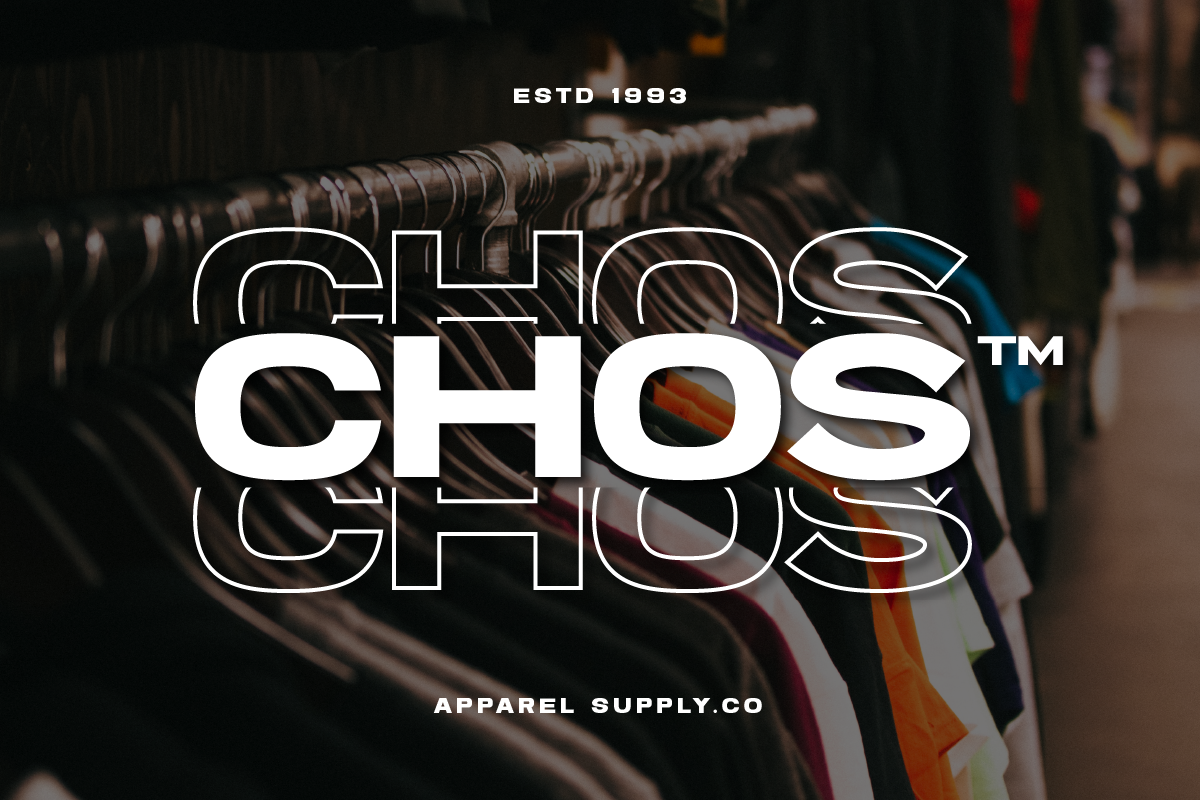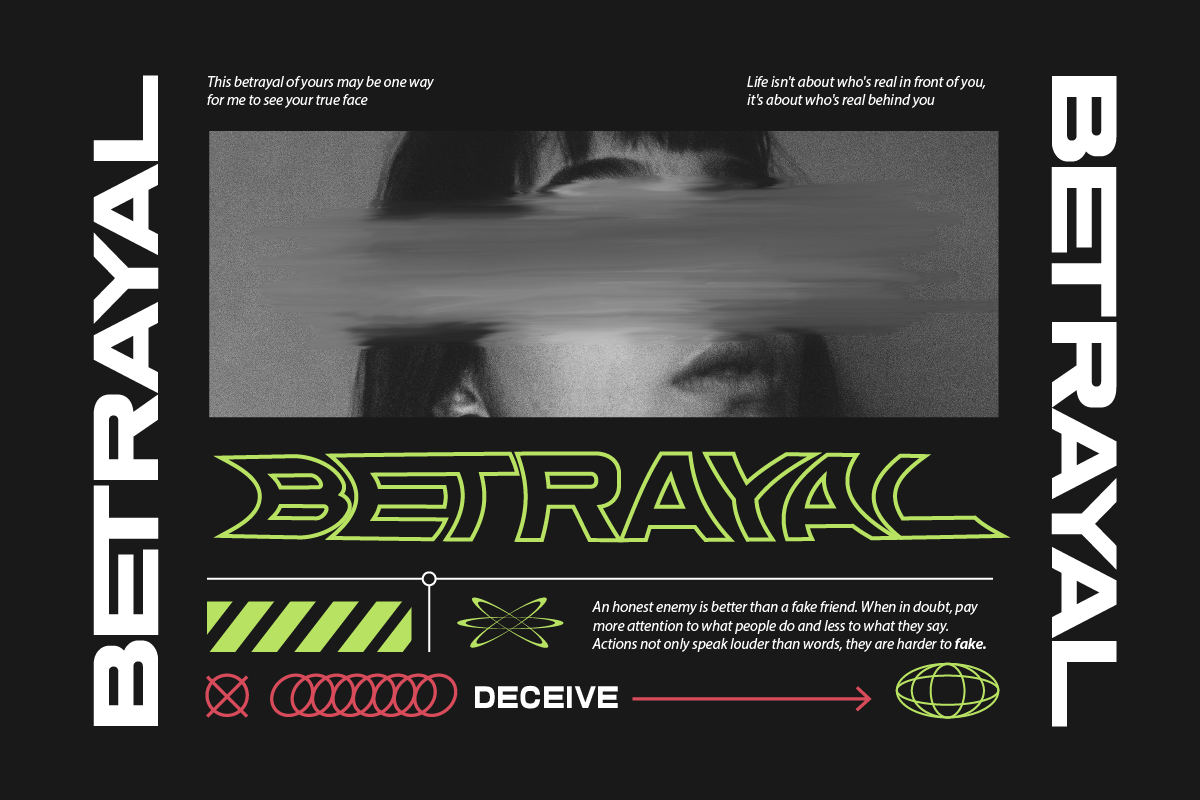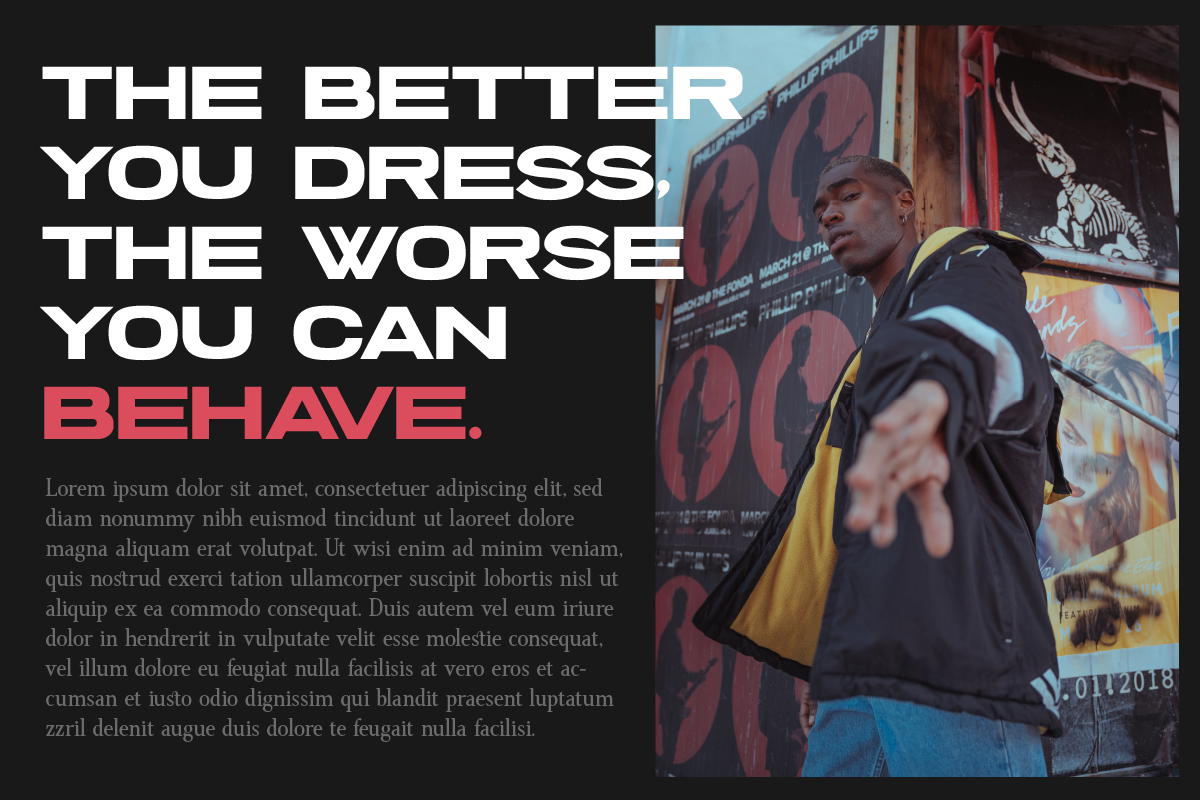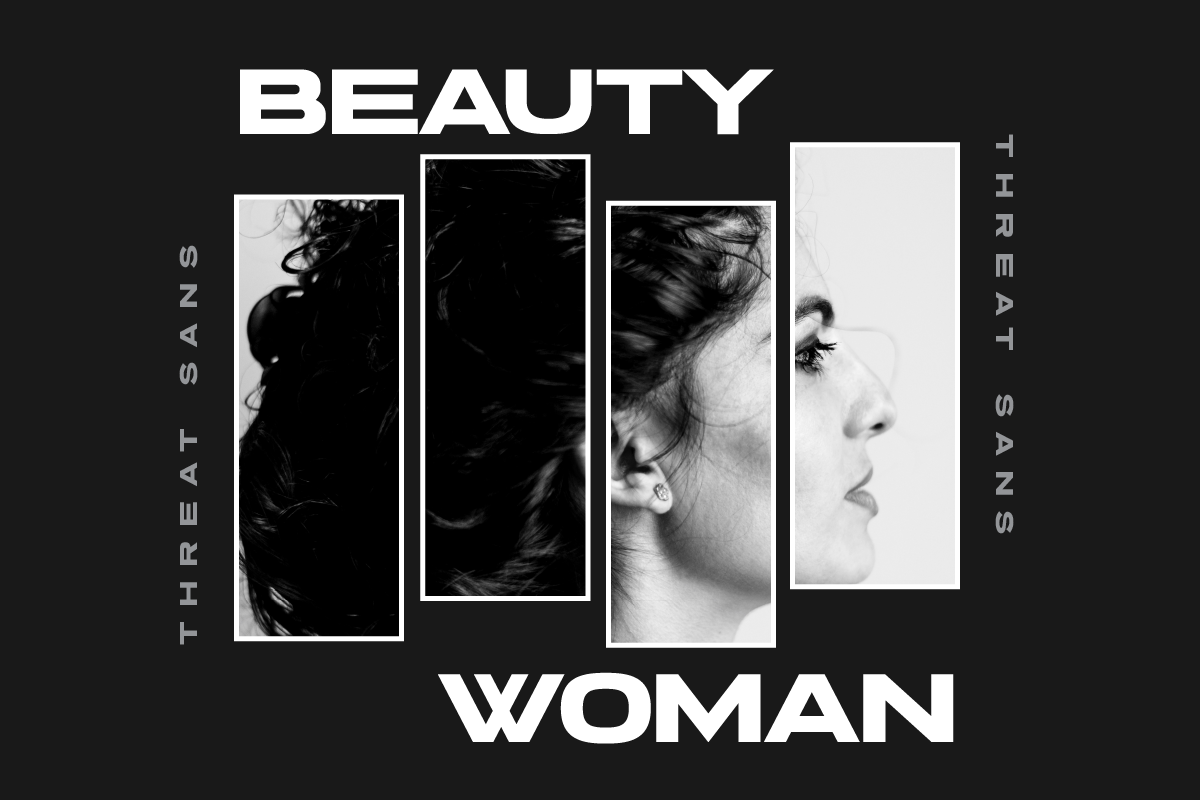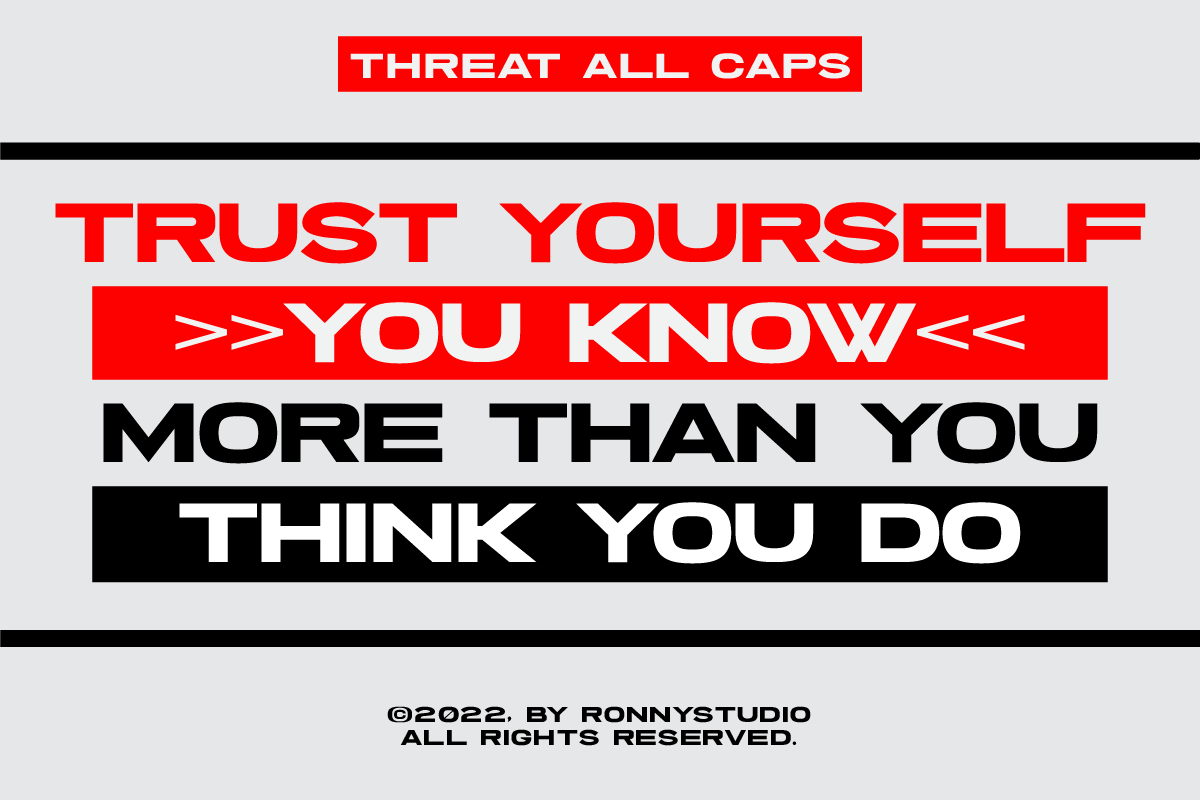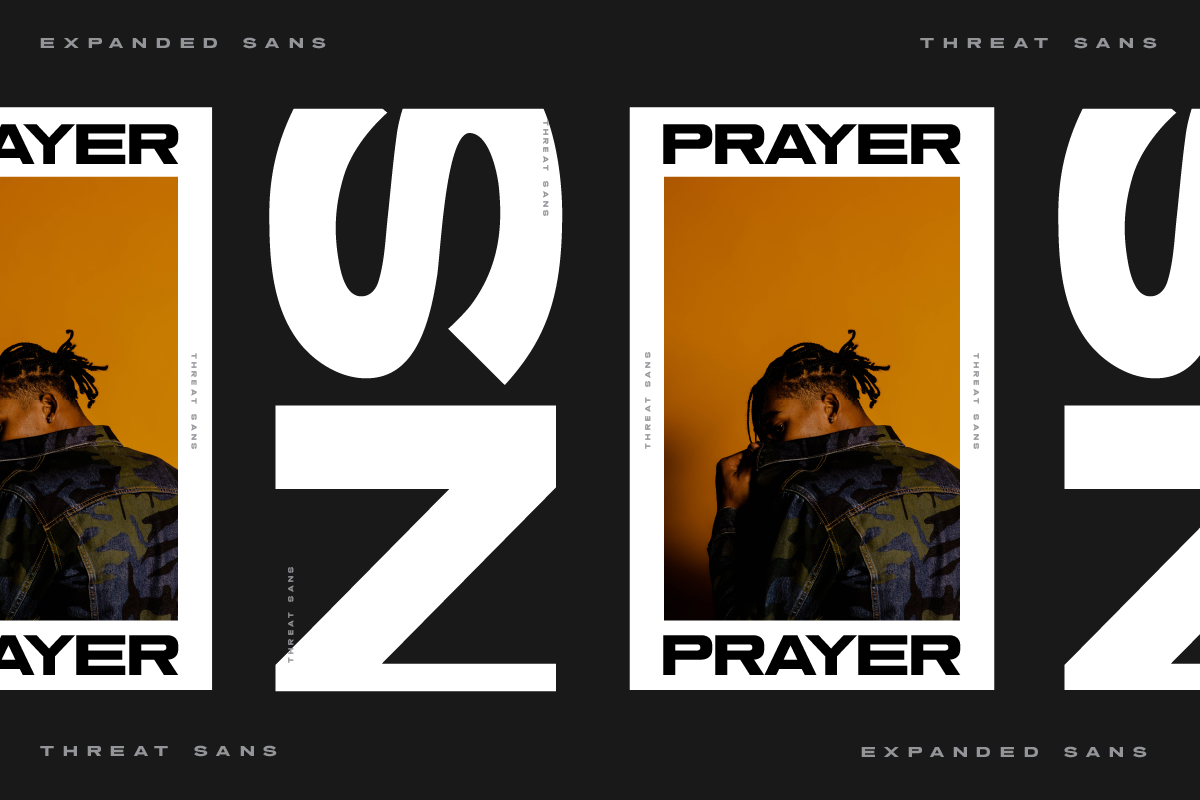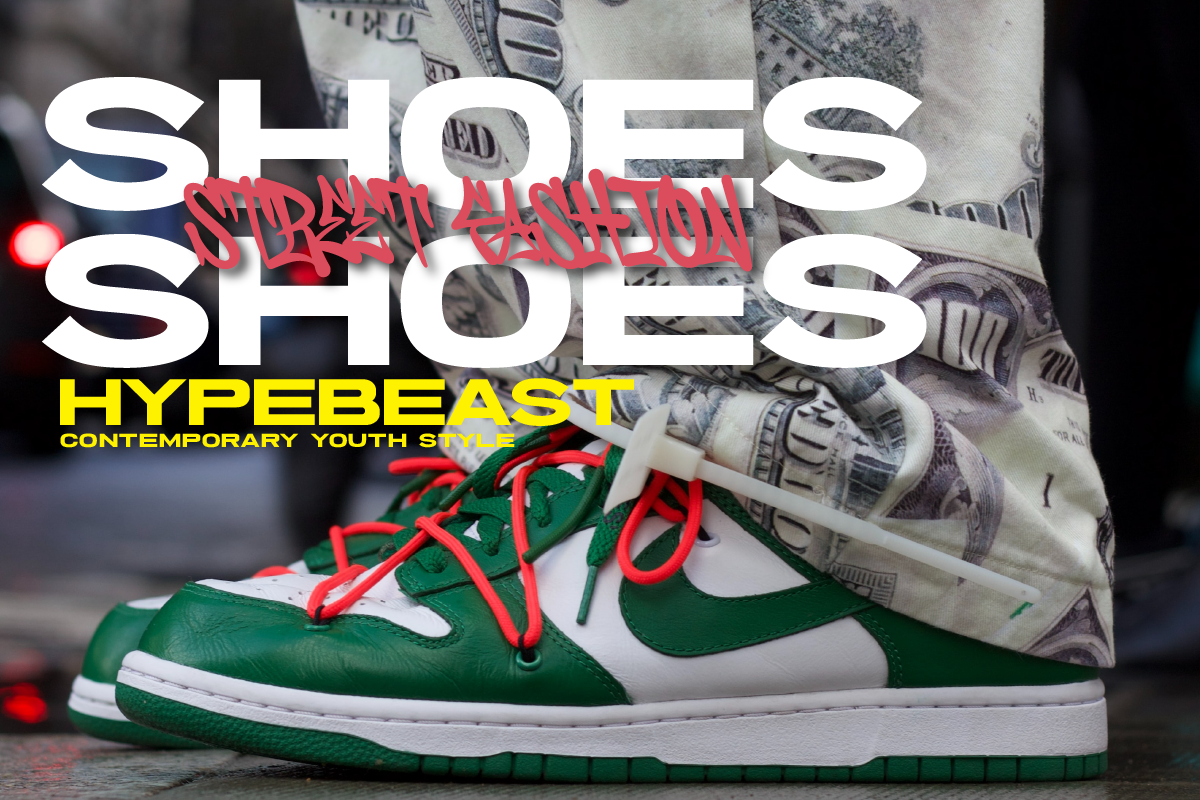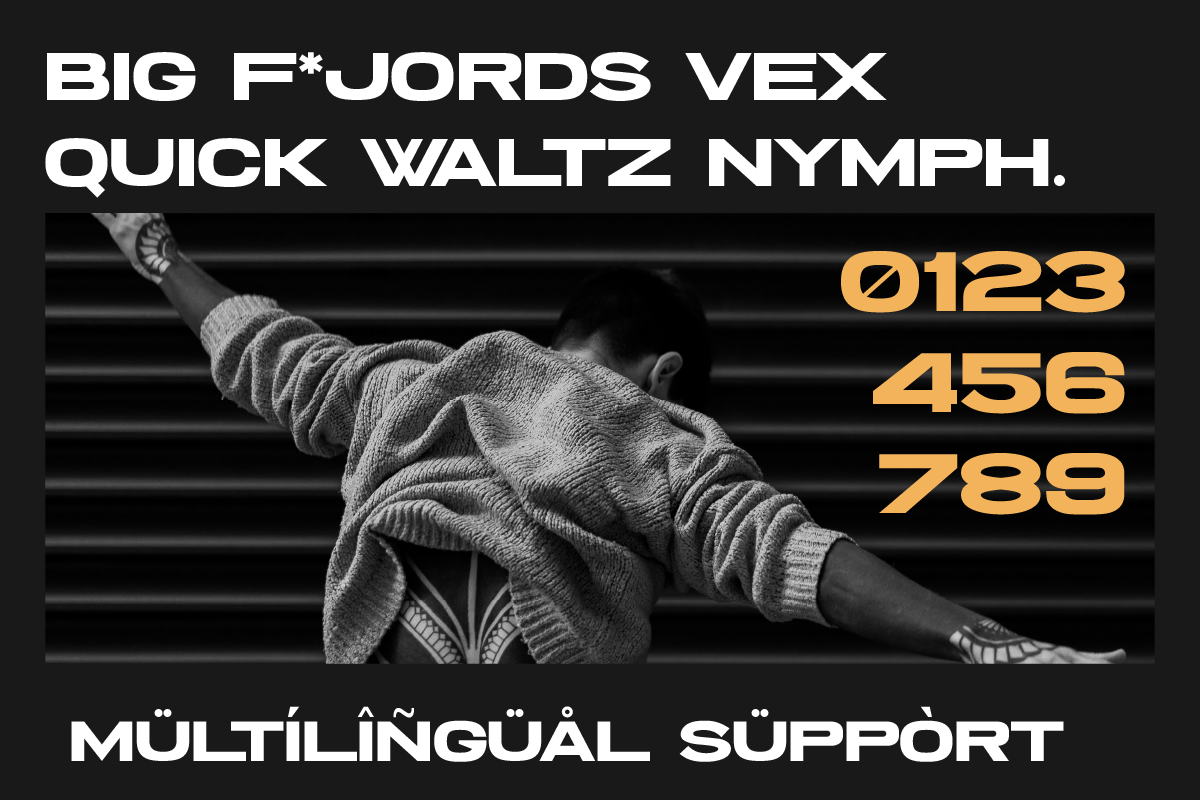
Threat Bold & Expanded Sans Serif
Threat – A Bold Expanded Sans Serif for Maximum Impact! ⚡
Threat is a powerful and wide sans serif typeface designed to dominate any visual composition. Its strong geometric structure and sharp edges make it perfect for posters, headlines, sports branding, urban designs, and music album covers.
🔠 Key Features:
✅ Bold & Expanded – Perfect for making a statement.
✅ 233+ Glyphs – Includes uppercase, lowercase, numbers, and symbols.
✅ Modern & Futuristic Aesthetic – Great for tech, gaming, and urban projects.
✅ Multilingual Support – Covers multiple languages.
🔥 Ideal for: Posters, Branding, Music & Sports Design, Logos, Social Media Graphics, and More!
💡 Make a Bold Statement with Threat – The Typeface for Maximum Impact!